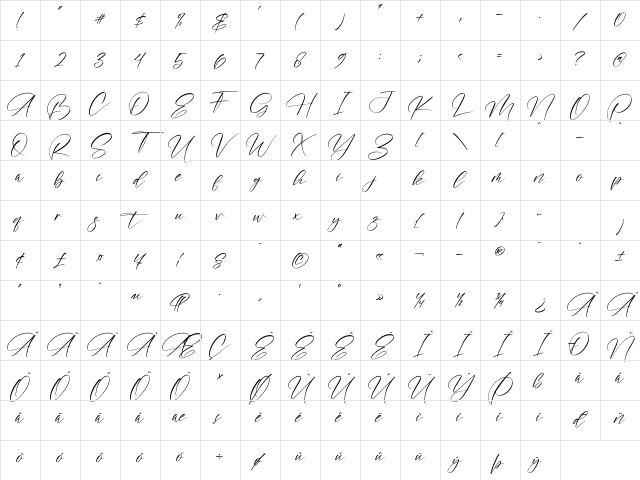
Complete Amatera Hours Regular glyph index. Displaying only characters natively supported by Amatera Hours Regular font.
Amatera Hours is a composed and adaptable typeface that performs quietly and consistently across a wide range of design contexts.